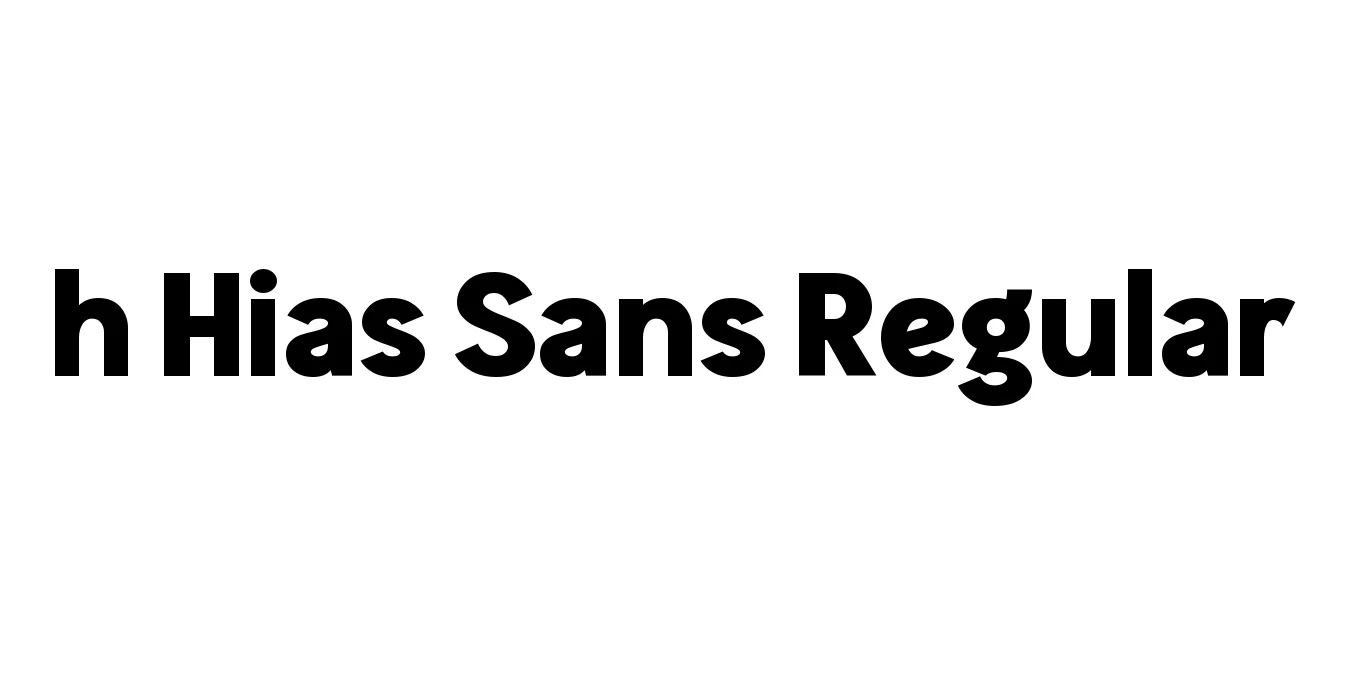
h Hias Sans Regular
Designed by Zulkiply
Hias Sans Regular is a contemporary sans-serif typeface designed to balance modern aesthetics with functional legibility. It features a clean, geometric structure with subtle humanist influences, making it highly versatile for both digital displays and high-quality printed materials. Its balanced proportions and open counters ensure visual clarity across various weights and sizes, catering to designers who prioritize a sophisticated yet approachable look in their creative projects.
Developed with a focus on minimalist design principles, Hias Sans has become a popular choice among UI/UX designers and brand identity specialists. The font's neutral character allows the content to take center stage while providing a professional polish to any layout. Whether used for high-end corporate branding or casual editorial work, this font maintains a consistent and refined finish that elevates the overall design hierarchy.
h Hias Sans Regular Best Uses
Excellent for body text and navigation menus due to its high legibility.
Perfect for creating professional and trustworthy company identities.
Ideal for mobile apps and dashboard interfaces where space and clarity are essential.
Suitable for magazine layouts and brochures that require a modern, uncluttered appearance.